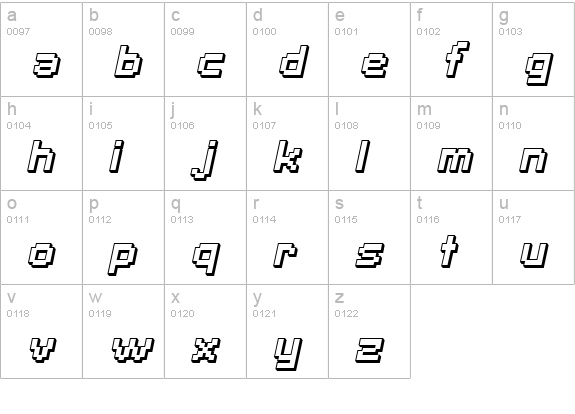
SF Pixelate Shaded Bold Oblique Font Details
SF Pixelate Shaded Bold Oblique is a strong, high-contrast, italic variant in the SF typeface family \xE2\x80\x94 well suited to headlines, attention-grabbing titles, and strong calls-to-action.
SF Pixelate Shaded Bold Oblique font is a stunning display font that combines the beauty of pixelation with a touch of shading and a bold slant. This unique typeface is perfect for adding a modern and edgy touch to your designs. Designed with meticulous attention to detail, SF Pixelate Shaded Bold Oblique features sharp and crisp edges that create a mesmerizing visual effect. The pixelated design adds a sense of retro nostalgia, while the shading adds depth and dimension to each character. The bold oblique slant gives the font a dynamic and energetic feel, making it ideal for eye-catching headlines and attention-grabbing titles. What sets SF Pixelate Shaded Bold Oblique font apart is that it is available for free download at FontsMarket.com. This means that designers and creatives can easily access and use this font in their projects without any cost. With its versatile and bold style, SF Pixelate Shaded Bold Oblique font can be used in various design applications such as logos, posters, branding materials, website headers, and more. Whether you're working on a futuristic sci-fi project, a retro-inspired design, or simply want to add a unique and modern twist to your typography, SF Pixelate Shaded Bold Oblique font is the perfect choice. Its combination of pixelation, shading, and bold oblique slant creates a visually captivating and distinct look that will make your designs stand out. Download SF Pixelate Shaded Bold Oblique font for free at FontsMarket.com and unleash your creativity with this one-of-a-kind typeface. With its bold and striking appearance, this font is sure to make a lasting impression and elevate your designs to the next level. Don't miss out on this amazing opportunity to enhance your design arsenal with a freely available font that is both visually stunning and versatile.